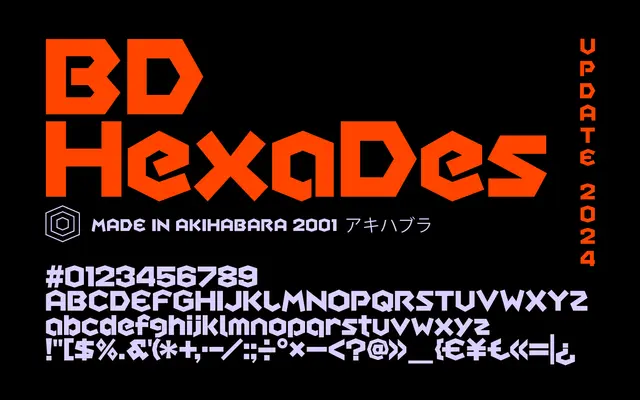
BD HexaDes
Type Different · 2001
A single-weight display typeface drawn from the angular electronic signage of Akihabara, originally released in 2001 and updated in 2024.
Conceived in 2001 and revised with broader language support in 2024, BD HexaDes takes its visual cues from the dense neon and LED lettering of Tokyo's Akihabara district. The single Regular weight features angular, geometric forms with a stylistic set offering alternate versions of key characters. Coverage spans over 25 Latin-based languages including Central and Eastern European scripts.
The font draws on the visual language of Akihabara's electronic signage, with geometric, angular letterforms that sit firmly in the techno or novelty display category rather than any conventional text type classification.